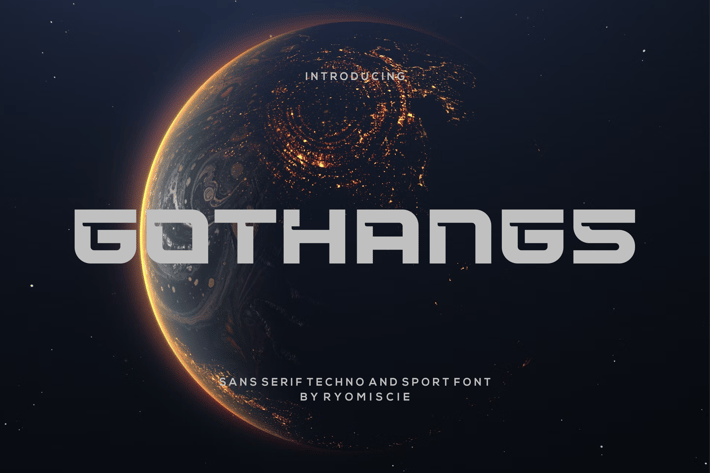
Gothangs - Techno And Sport Font
Introducing our new product Gothangs Font - Modern Font
Gothangs Font - Modern Font is a bold and authentic display font. The font is suitable for any branding project like logo,
t-shirt printing, esport, and many more. outstanding in a wide range of contexts.